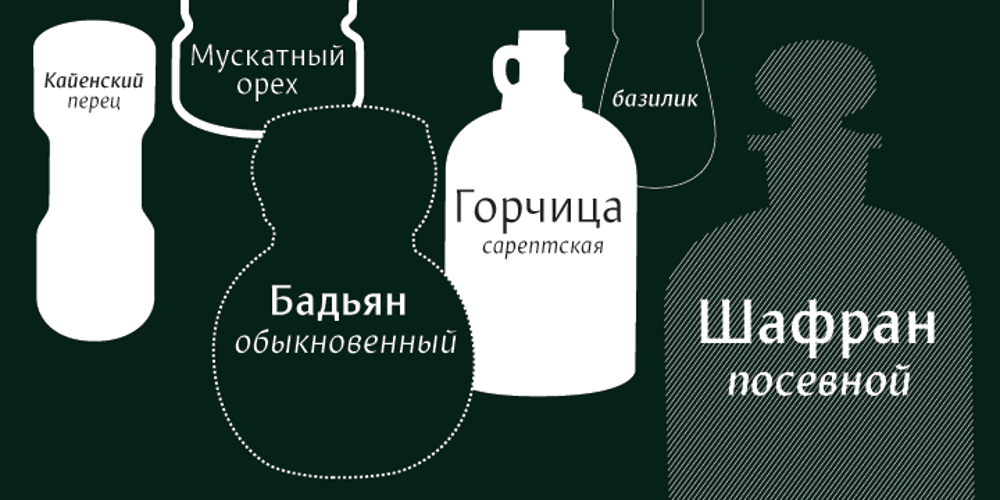
ALS Mezzo Font Family was designed by Elena Novoselova and published by Art. Lebedev Studio. ALS Mezzo contains 4 styles and family package options. Mezzo is a slender, humanist sans serif with four font styles. Designers will find it useful when creating packaging, candy and pastry wrappers, perfume and wine labels, etc. Slim and elegant letterforms are especially fit for small pieces of text, headings and subheads. Mezzo is a good choice for women’s magazines with their particularly subtle approach.